14 Top Adobe Script Font Styles for Stunning
Choosing the right adobe script font is crucial for unlocking stunning visual layouts that immediately capture your audience’s attention. To help you transform your creative work, we have curated 14 of the top typography styles available today, perfect for branding, logos, and elegant invitations. Whether you are designing for print or digital platforms, these professional hand-drawn treasures will easily give your next art project an organic, luxurious, and completely custom-made feel.
Heatesh Script Font: A Chic Calligraphy Masterpiece for Adobe
Step into a realm of pure design sorcery with Heatesh, an exquisitely chic, modern typeface designed to wrap your text in a spellbinding cloak of elegance. This stunning Calligraphy masterpiece seamlessly blends high-end fashion strokes with a touch of organic mystery, establishing itself as a must-have Adobe Script Font in any creative toolkit. It serves as the ultimate choice for crafting sophisticated signature logos, delicate photography watermarks, and breathtaking wedding invitations.
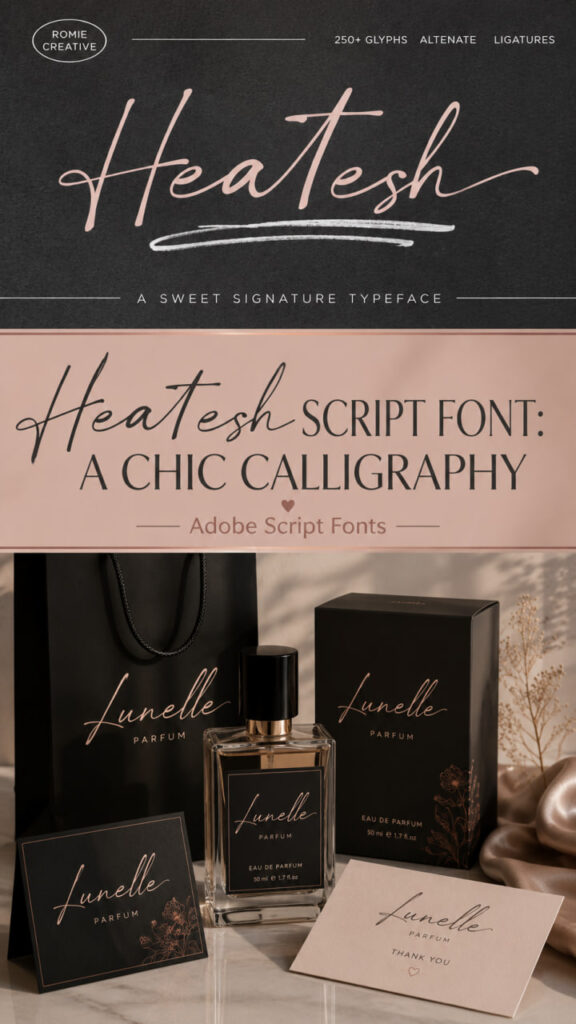
Every graceful swirl and delicate glyph perfectly captures the warmth of an organic, Handwritten letter, ensuring your personal initials or brand identity stands out with undisputed luxury. Meticulously engineered for Adobe Illustrator, Photoshop, and InDesign, Heatesh allows you to unlock gorgeous decorative swashes and stylistic alternates directly through OpenType features with total ease. Introduce this beautiful, magical script to your workspace today to make your everyday branding layouts feel incredibly intimate, artistic, and completely unforgettable.
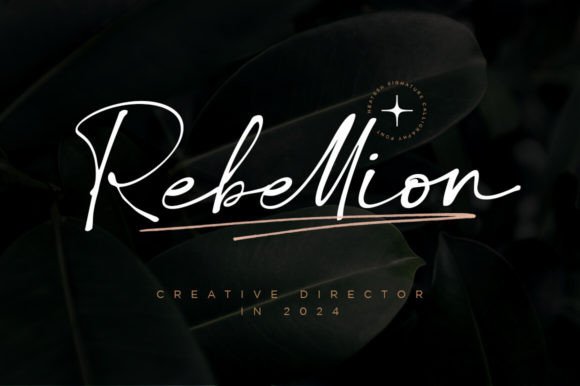
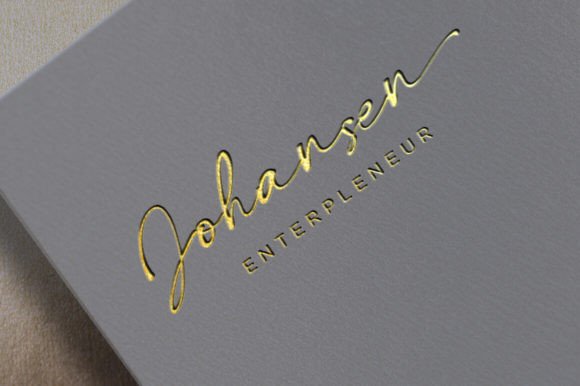
Damione Font: Energetic Calligraphy for Modern Creatives
Awaken your layouts with the rhythmic, dancing energy of Damione, a breathtaking signature typeface designed to capture the authentic, organic essence of a hand-inked pen. This exceptionally beautiful Calligraphy masterpiece features a lively baseline and expressive decorative characters that make every word feel deeply personal, artistic, and alive. As a highly versatile Handwritten treasure, it brings an effortless, high-end charm to romantic wedding invitations, customized greeting cards, chic business cards, and striking poster designs.
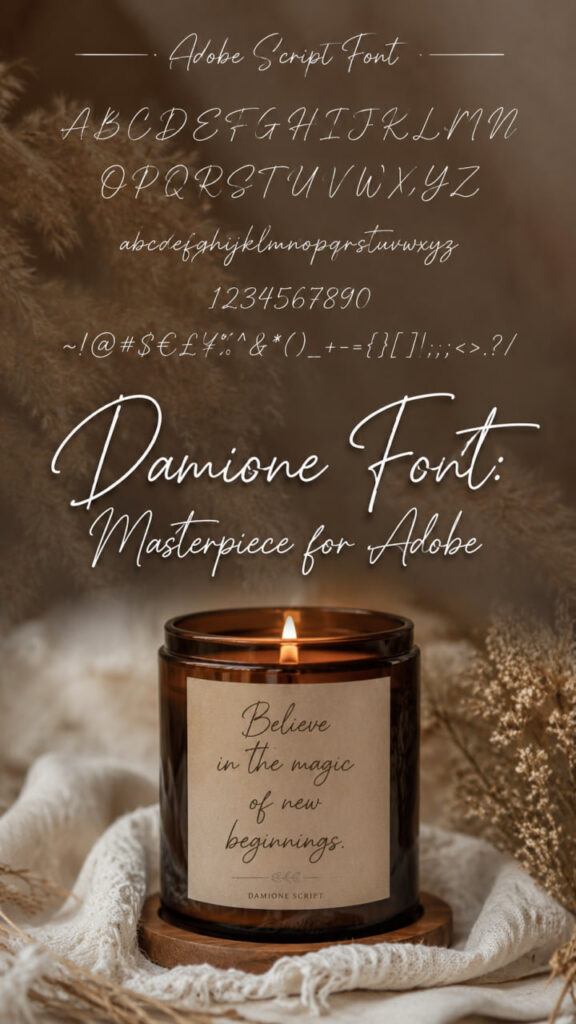
Equipped with over 250 gorgeous glyphs, Damione is a premium Adobe Script Font that transforms simple text into custom hand-rendered art. Meticulously optimized for Adobe Illustrator, InDesign, and Photoshop, this design powerhouse allows you to easily unlock a rich variety of OpenType features, including flowing swashes, stylistic alternates, and cohesive ligatures. Complete with full PUA unicode encoding for hassle-free utility across all platforms, Damione is the ultimate way to sign your creative projects with an unforgettable, sophisticated flourish.
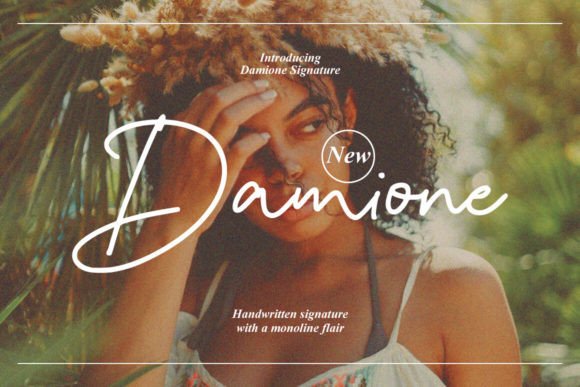
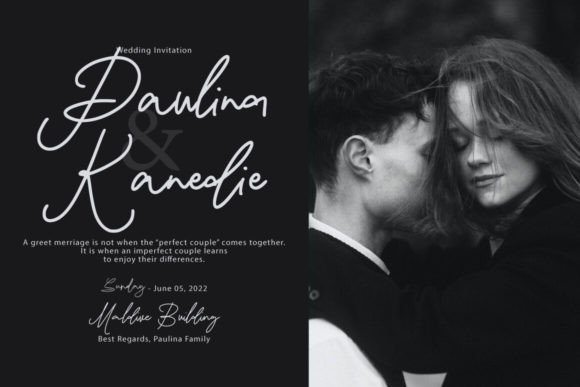
Contania Font: A Fresh Calligraphy Masterpiece for Your Creative Canvas
Unveil an enchanting state of artistic motion with Contania, an exceptionally fresh and modern script typeface designed to easily breathe life into your creative designs. Boasting beautifully decorative characters and a dancing baseline, this stunning Calligraphy masterpiece is masterfully engineered to wrap your text in an elegant, high-end feel. It serves as an incredibly versatile Handwritten treasure, making it the perfect choice for styling romantic signature logos, custom social media headers, and prestigious wedding stationery.
With a massive library of over 600 exquisite glyphs, Contania functions as a remarkably powerful Adobe Script Font that transforms simple text into hand-crafted editorial art. Meticulously optimized for Adobe Photoshop, InDesign, and Illustrator, this creative powerhouse gives you instant access to a rich collection of OpenType features, including stylistic sets, contextual variations, and fluid swashes. Complete with full PUA unicode encoding for effortless integration across all platforms, Contania is the ultimate tool to sign your custom layouts with a touch of timeless, cinematic grace.
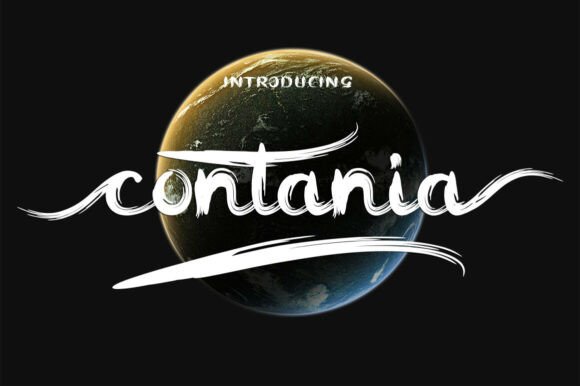
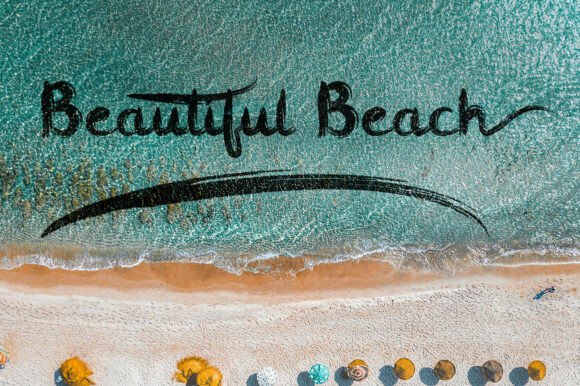
Exrone Font: A Sophisticated Calligraphy Gem for Adobe
Strip away the ordinary and welcome a new era of artistic distinction with Exrone, a wonderfully sophisticated typeface designed to effortlessly breathe life into your creative canvas. Bridging the gap between timeless Calligraphy principles and contemporary styling, this stunning selection serves as an exceptionally polished Handwritten treasure. Perfect for crafting custom signature logos, elegant editorial headers, and prestigious wedding stationery, it commands immediate attention with its fluid, organic charm.
Delivering ultimate design versatility, Exrone functions as a remarkably powerful Adobe Script Font that transforms simple text layouts into custom works of art. Meticulously optimized for Adobe Photoshop, InDesign, and Illustrator—while performing flawlessly in Microsoft Word—this design asset comes fully loaded in OTF, TTF, and WOFF formats for seamless desktop and web integration. Complete with full PUA unicode encoding for hassle-free access across PC and Mac platforms, Exrone is the ultimate tool to give your creative projects a highly functional and captivating signature.
Jailand Font: A Graceful Signature Masterpiece for Adobe